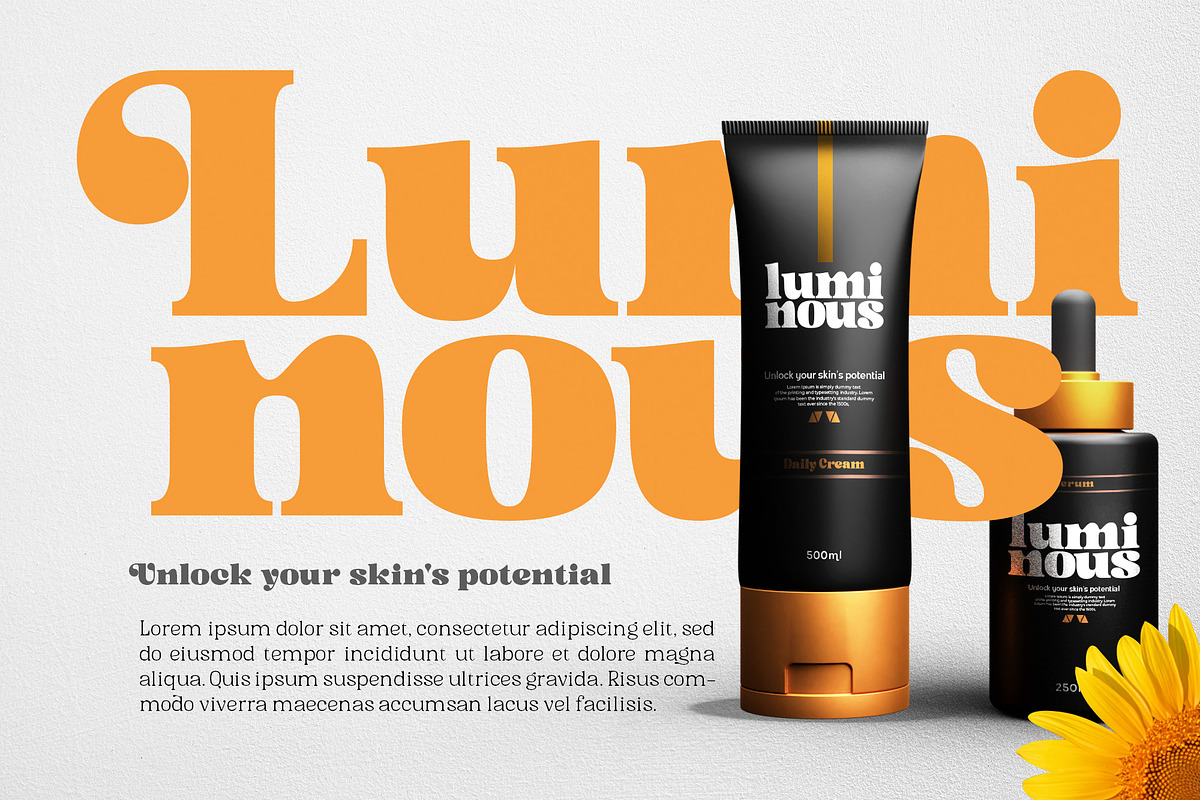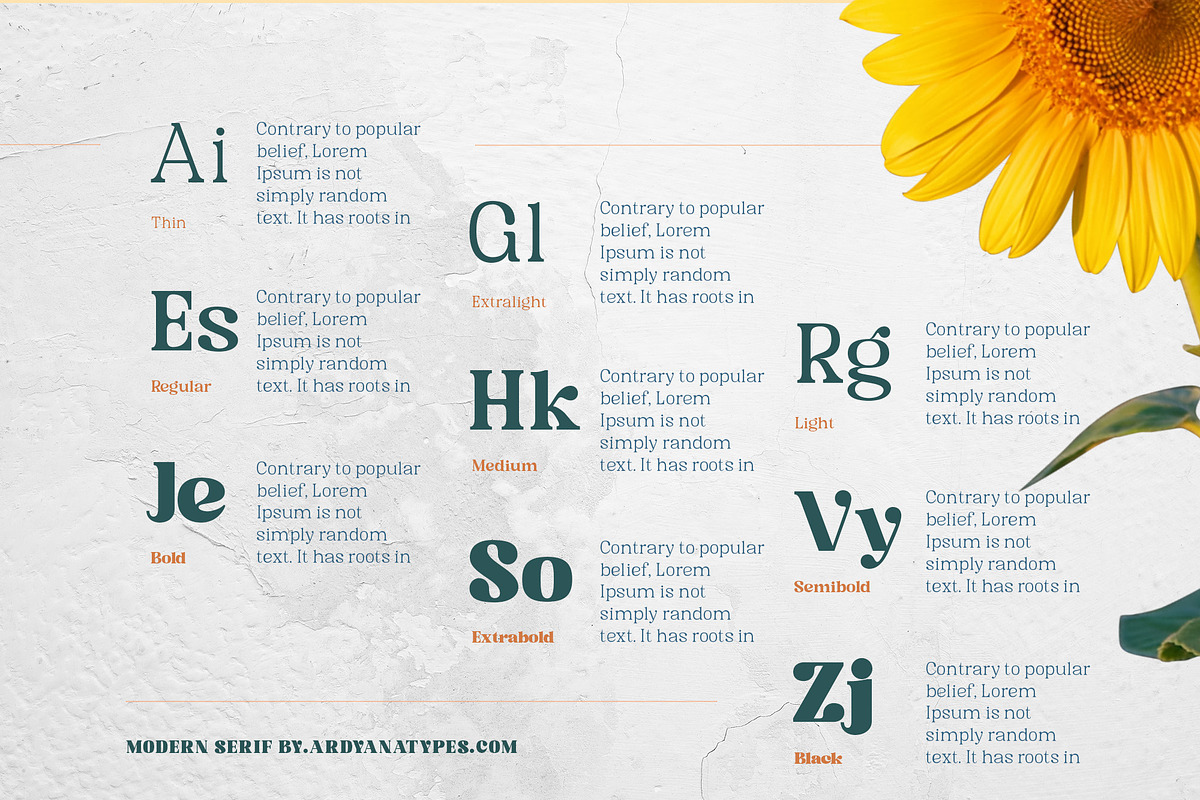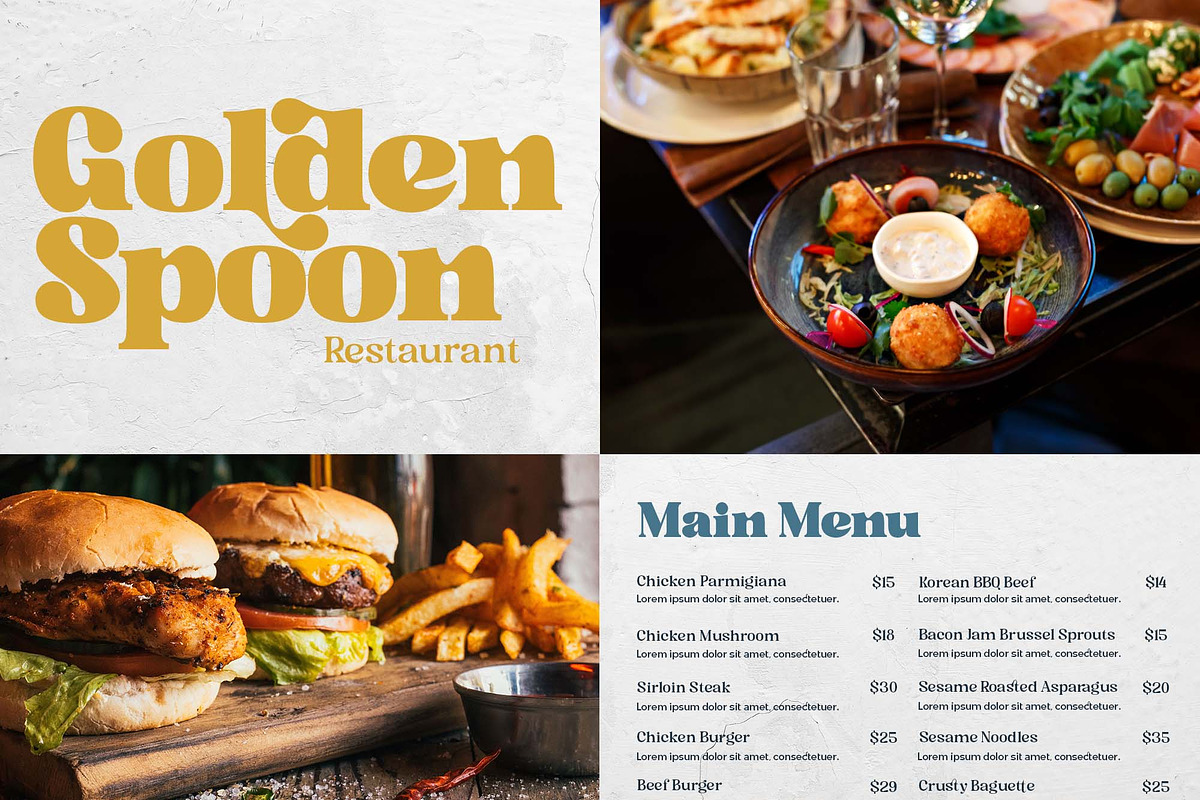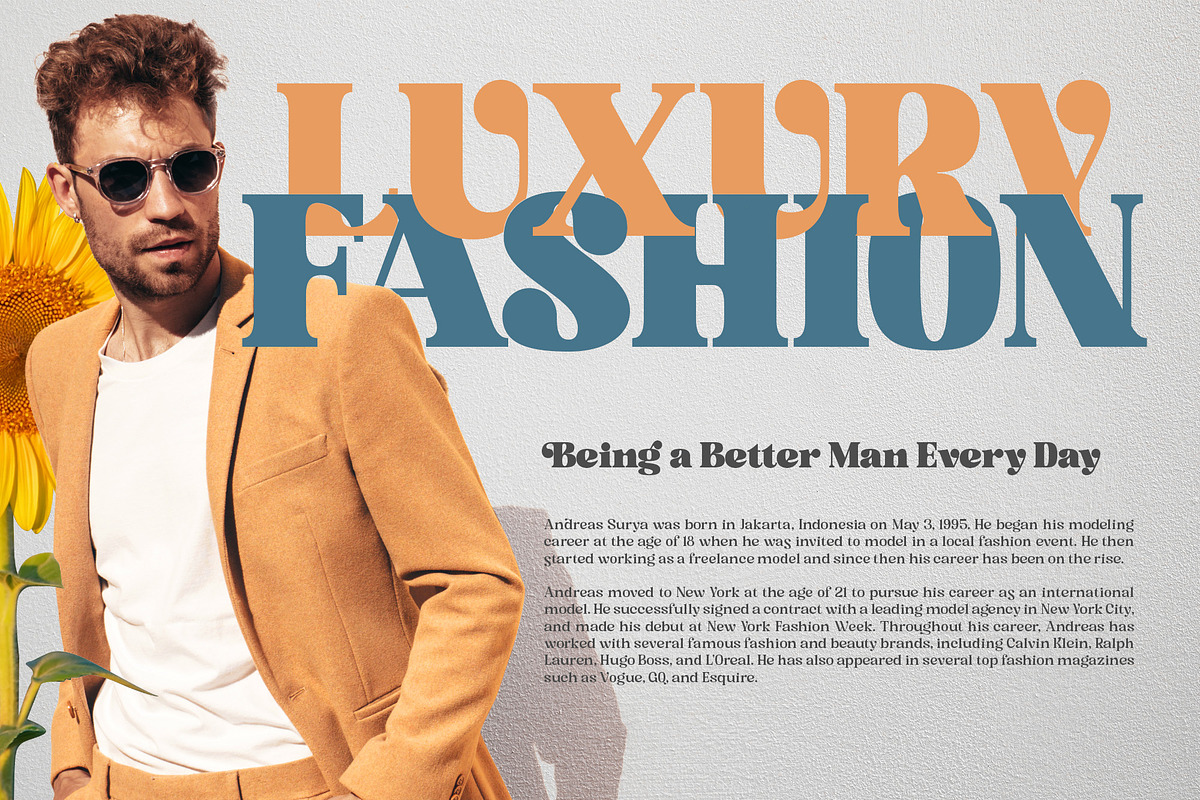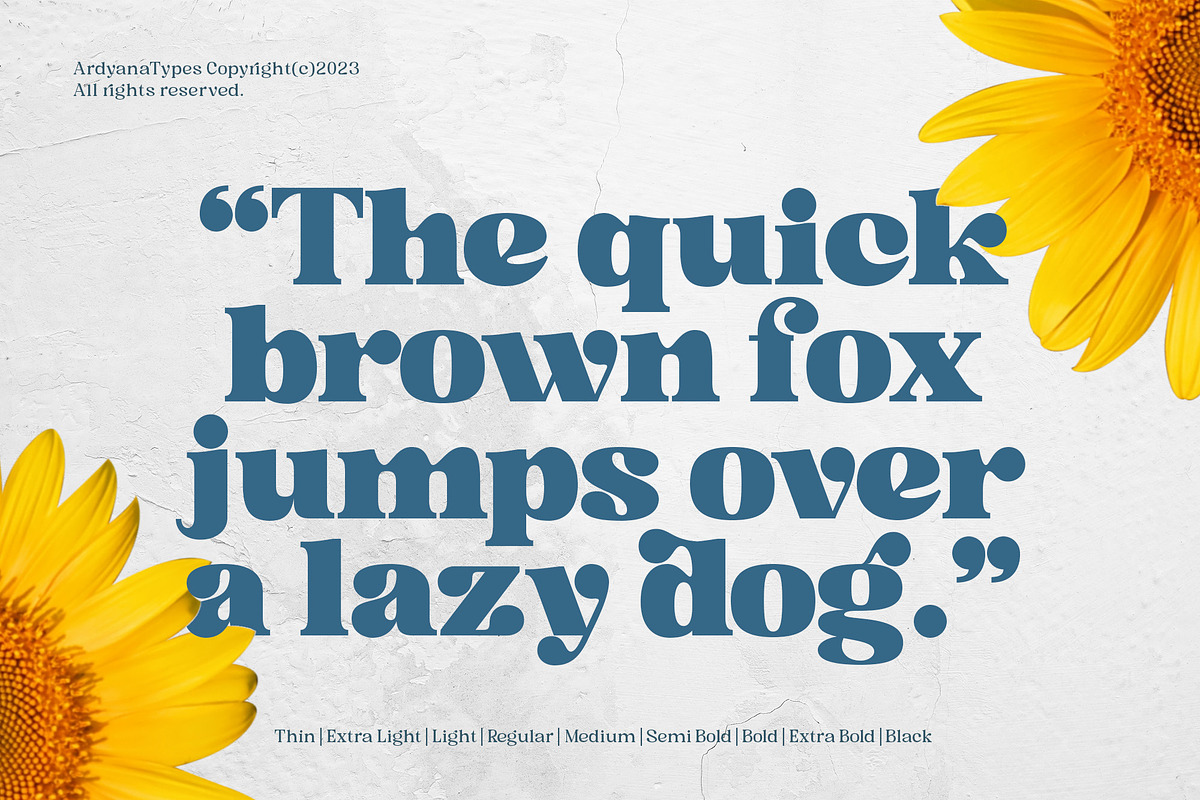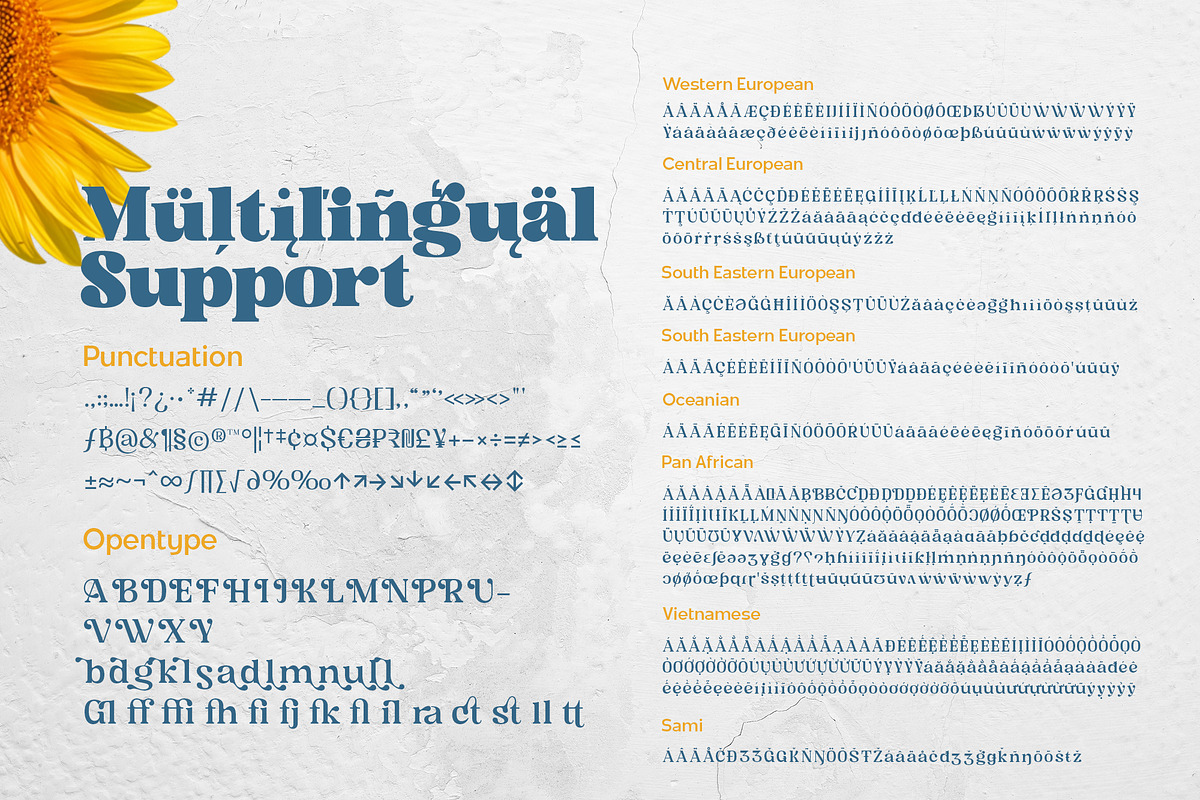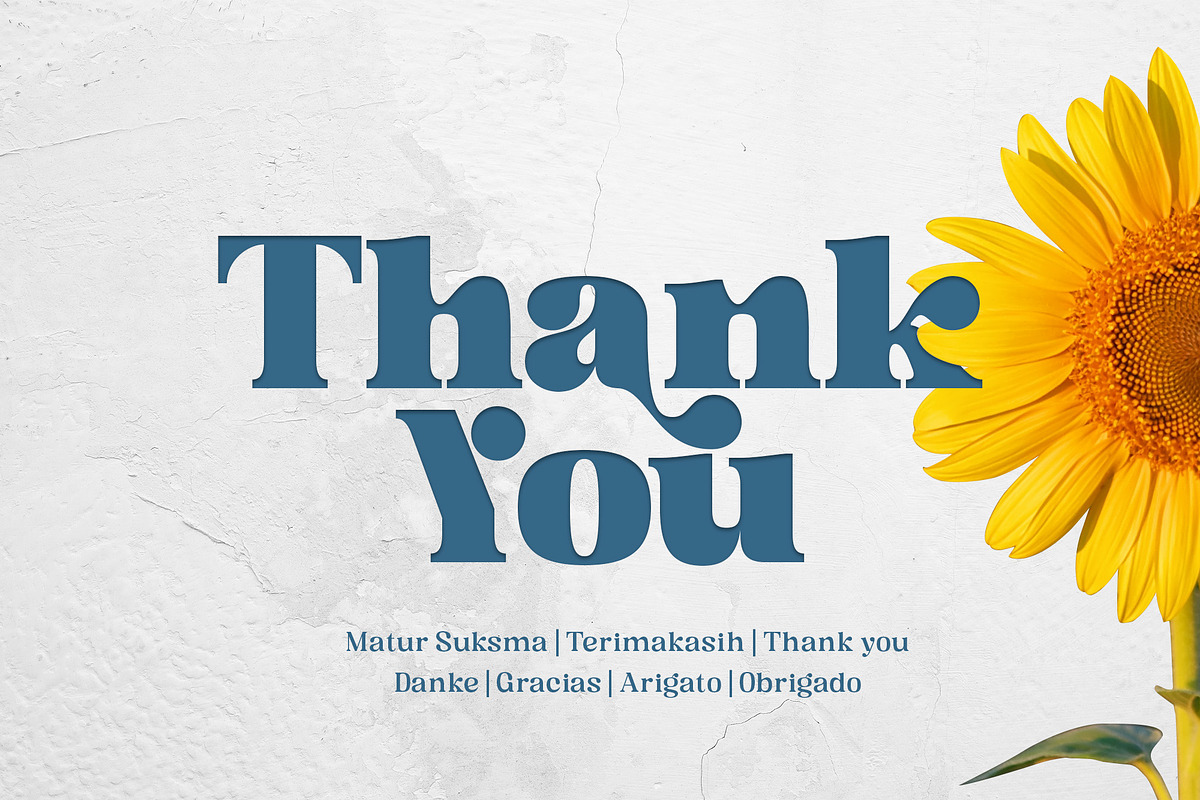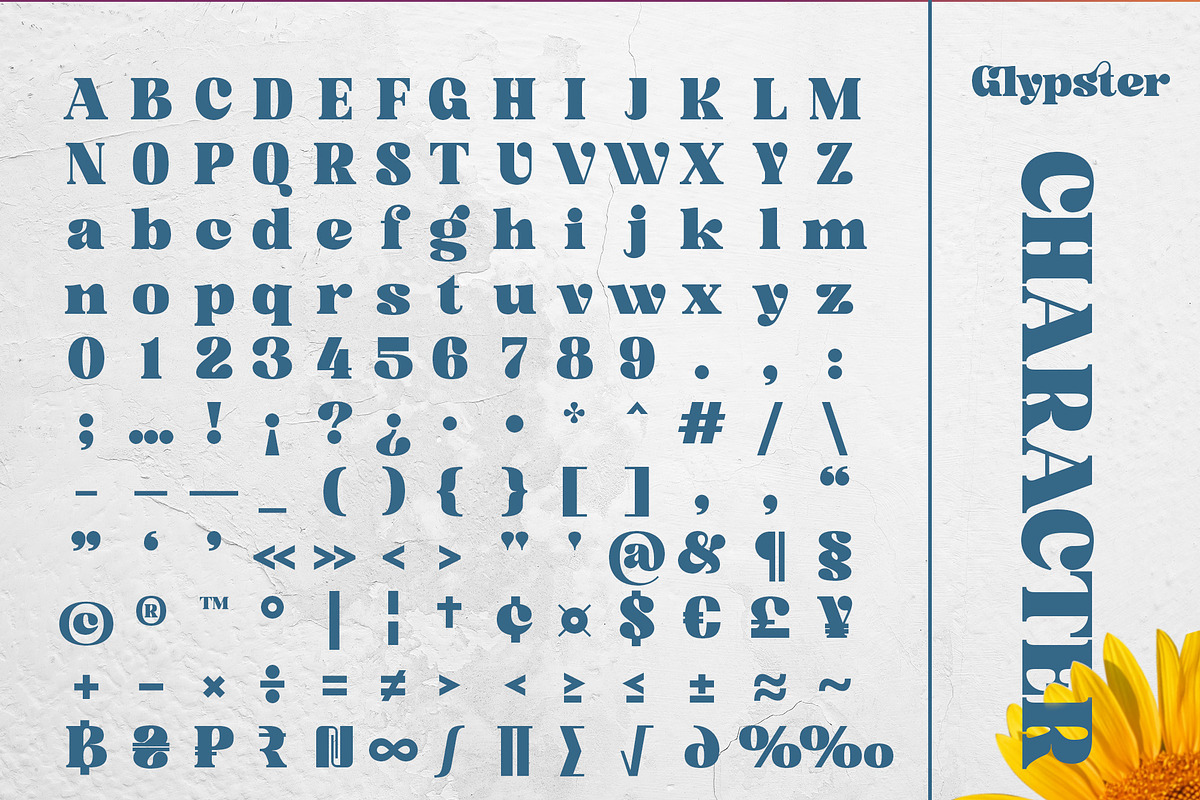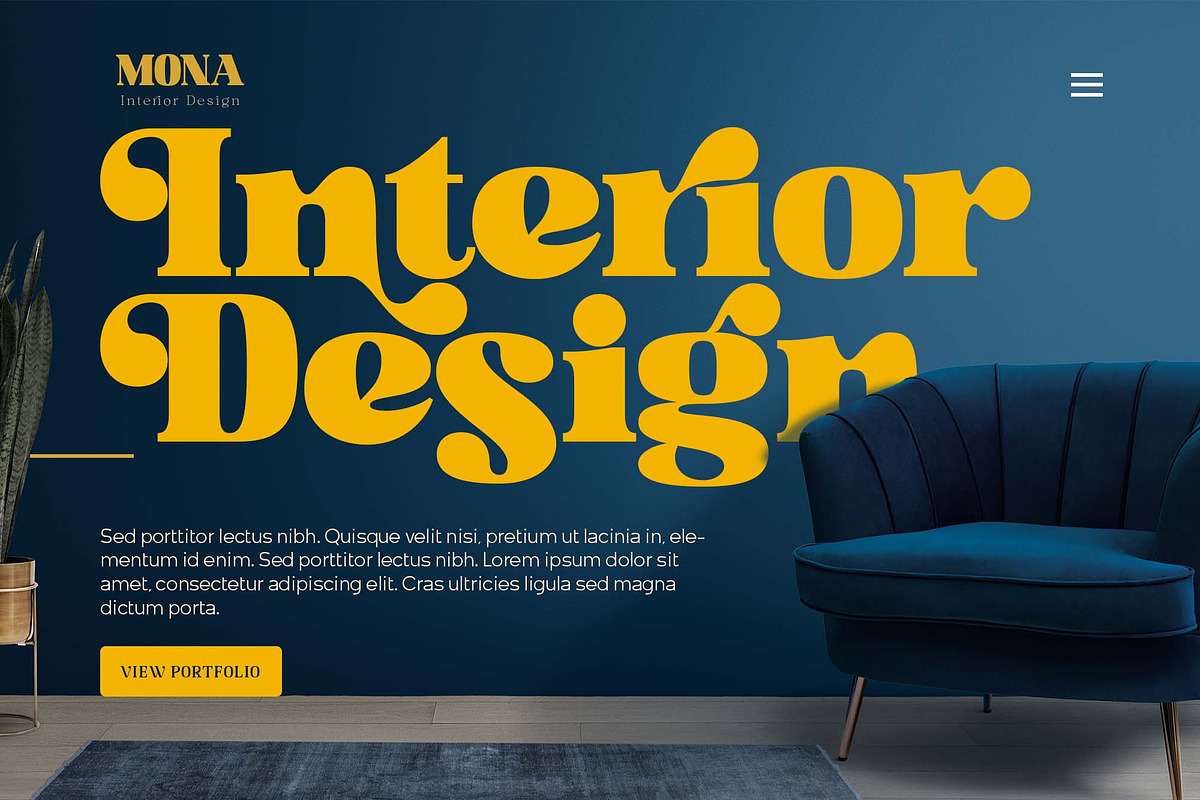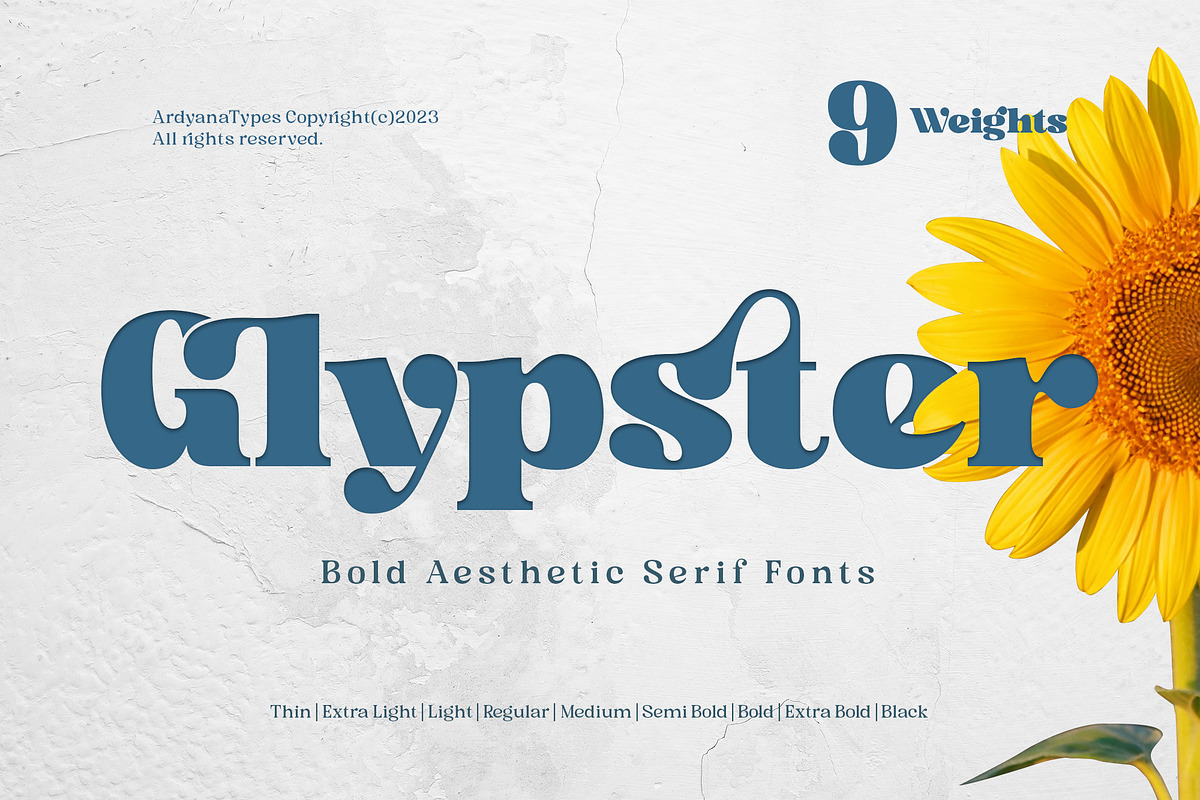
Glypster - Bold Aesthetic Serif Font
Bold Aesthetic Serif Fonts is a font that has boldness in every line. This font's robust and bold style conveys a luxurious, elegant, retro, and aggressive feel. The serenity afforded by this font's blend of boldness and subtlety makes Glypster suitable for a wide variety of design choices. Apart from that, the strengths of Glypster are its ability to support multiple languages and additional features that can add interest to every design you make. In terms of marketing, Glypster is very suitable for purposes such as logos, posters, business cards, and many more, so you can explore the potential of this font for various designs. Glypster's simplicity, but still elegant and luxurious, makes it the right choice for all procedures.
A – Z Character Set
a – z Characters set
Numerals & Punctuations
OpenType